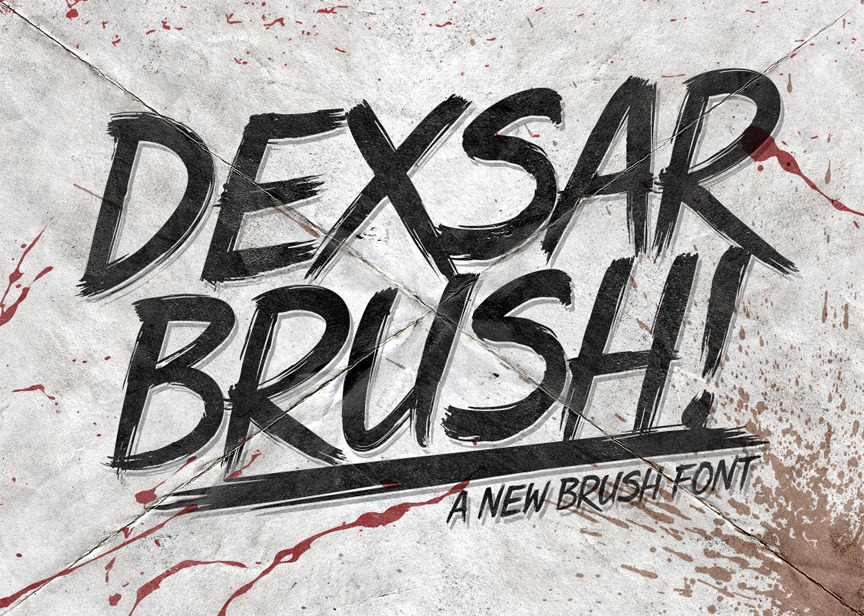
Dexsar Brush - Textured Brush Font
Dexsar Brush is the high detailed brush font that has over 240 glyphs and equipped with OpenType feature for make custom feel for your design. This font is designed for design purposes such as t-shirts, logos, posters and etc. See all picture for detail.